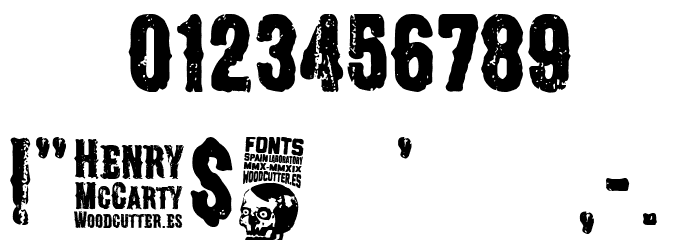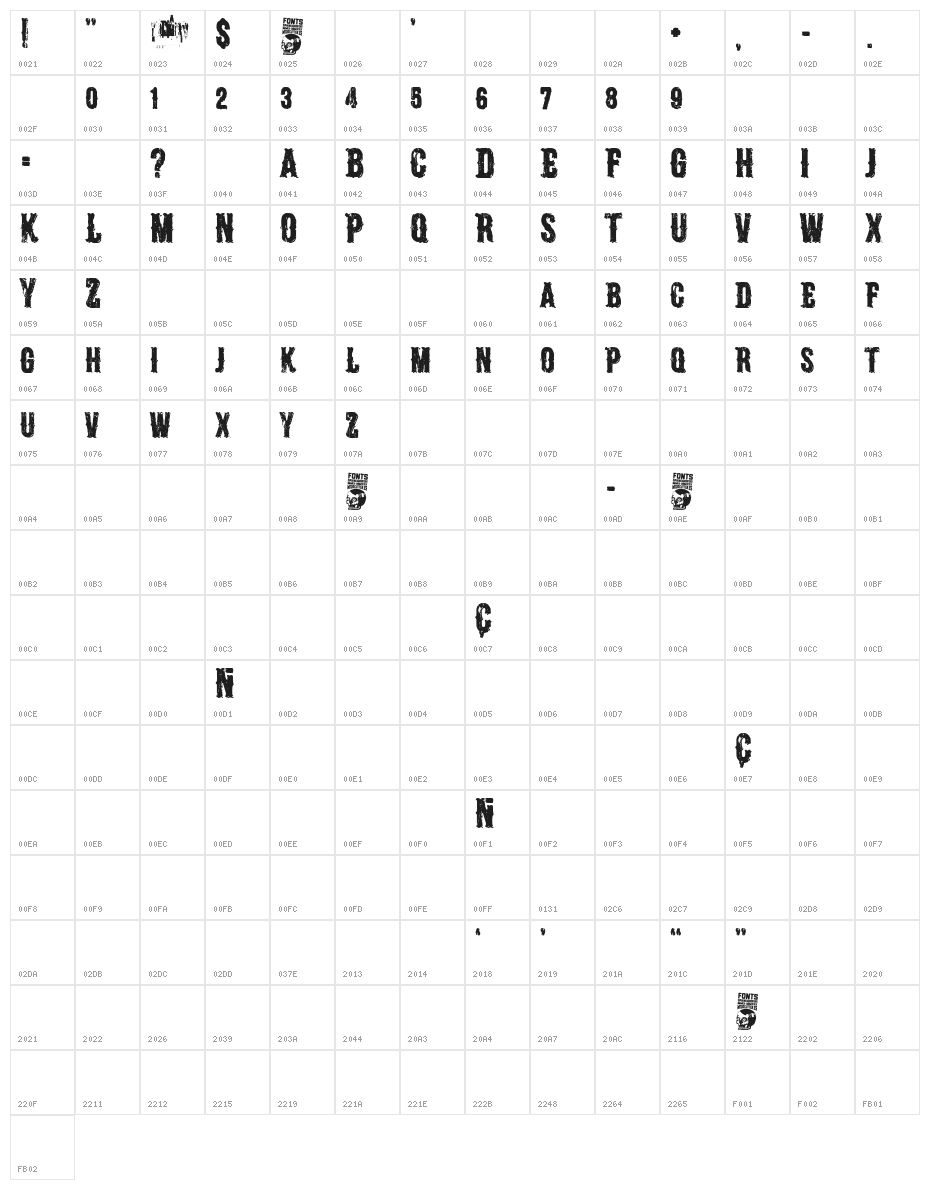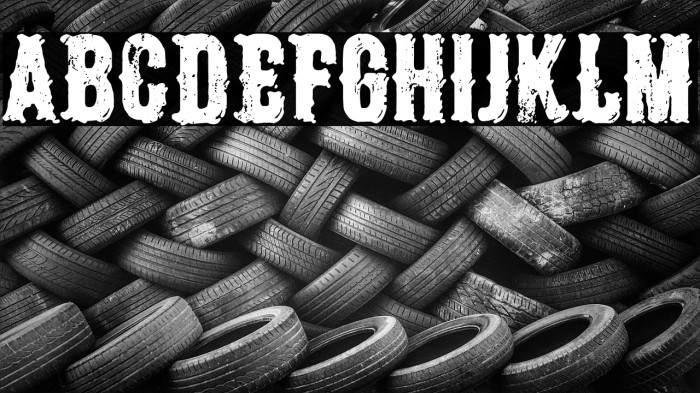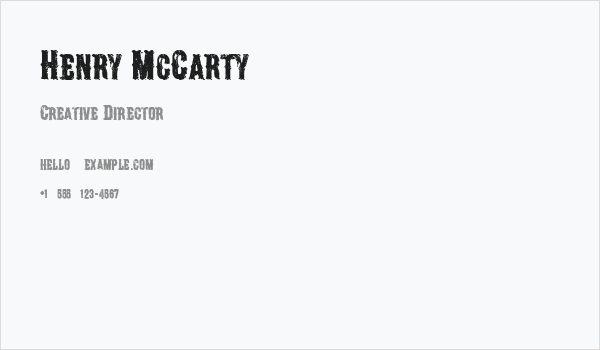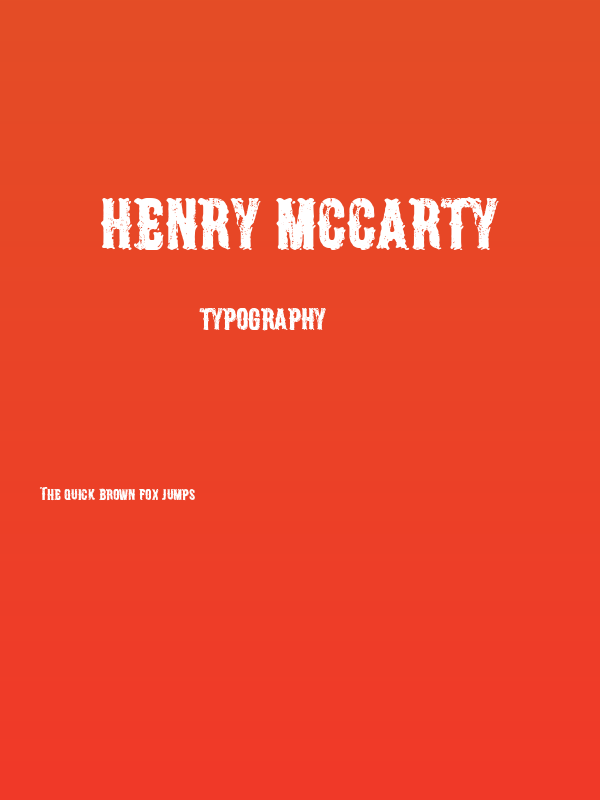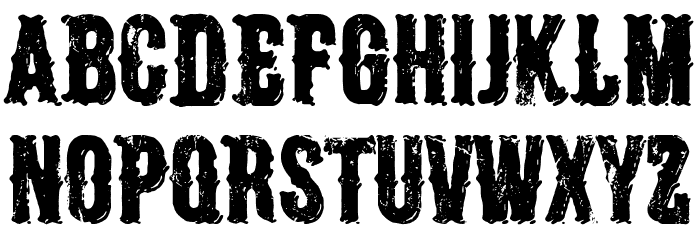
Henry McCarty Font
Henry McCarty Description
This font features a rugged, distressed style with a bold and impactful presence. The characters have a textured, worn look, reminiscent of vintage or western themes. Each letter is uniquely weathered, giving it a handcrafted appearance. The uppercase and lowercase letters maintain a consistent style, with numbers and special characters following the same design ethos. This font is ideal for projects that require a strong, rustic aesthetic, such as posters, branding, or themed events. Its bold nature ensures it stands out, making it perfect for headlines or attention-grabbing text.
| Proposed Projects | Ideal for posters, branding, themed events, and any project needing a strong, rustic aesthetic. |